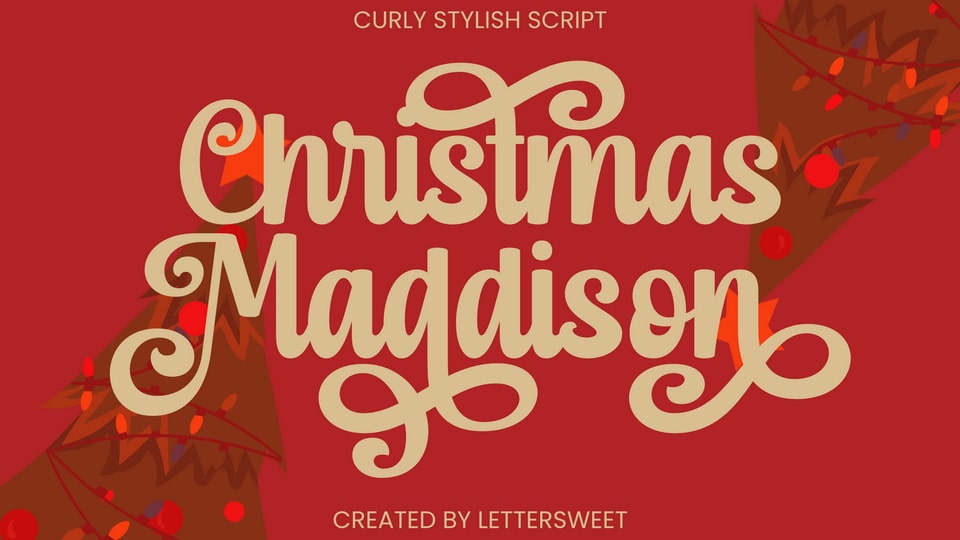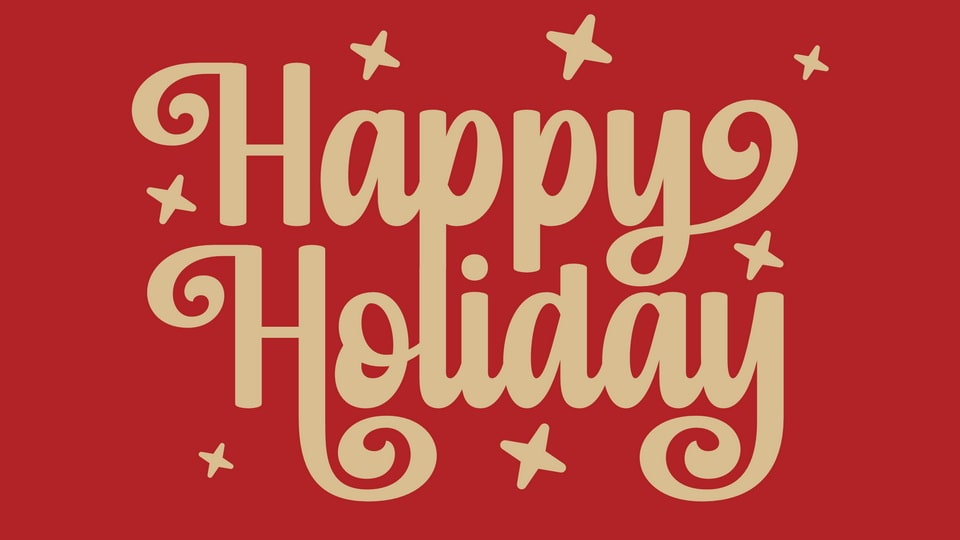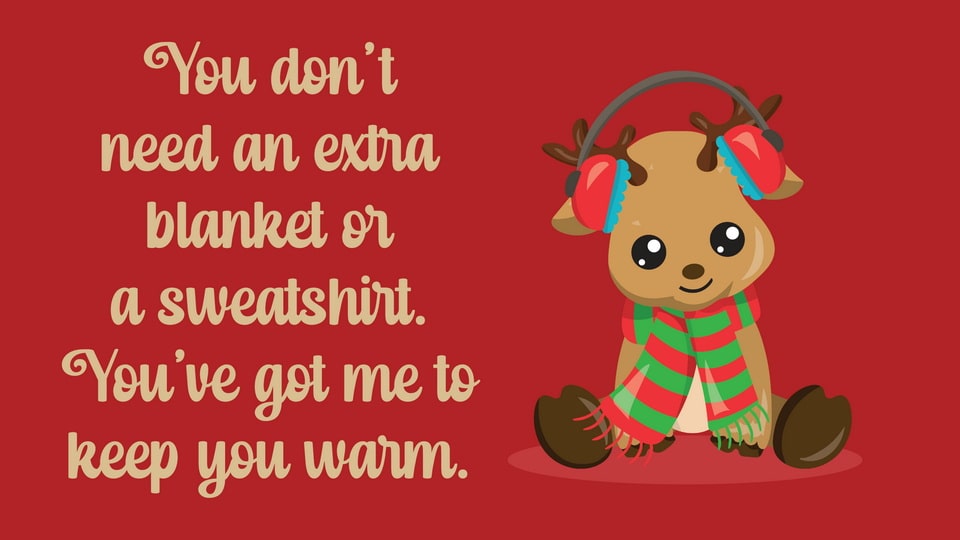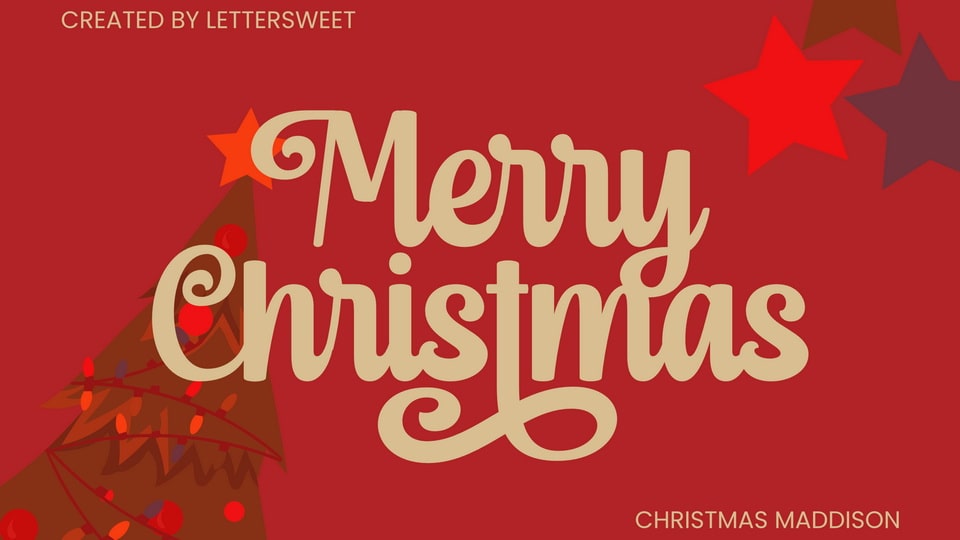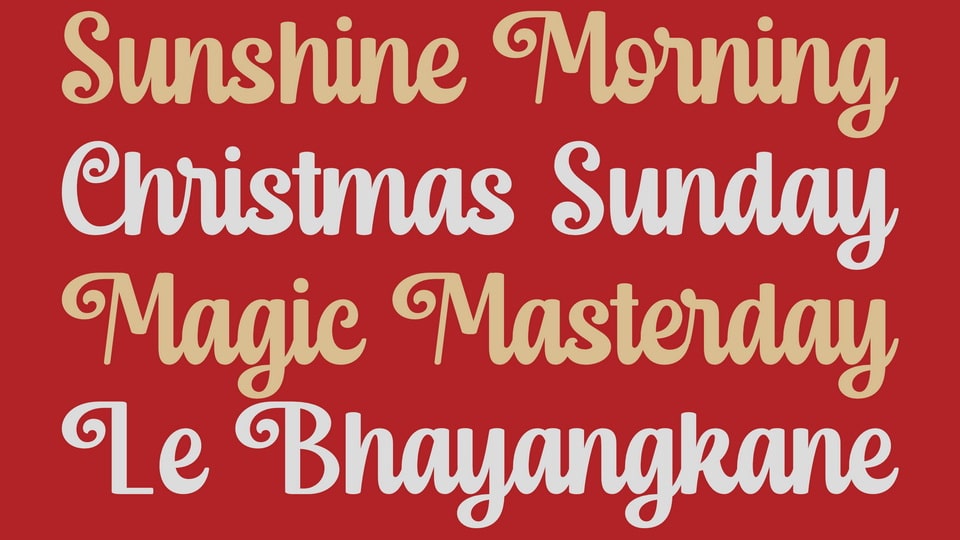
Christmas Maddison is a beautiful and romantic handwritten font. It looks amazing on thank you cards, quotes, wedding invitations, greeting cards, business cards, logos, and any other design that requires a touch of handwriting.